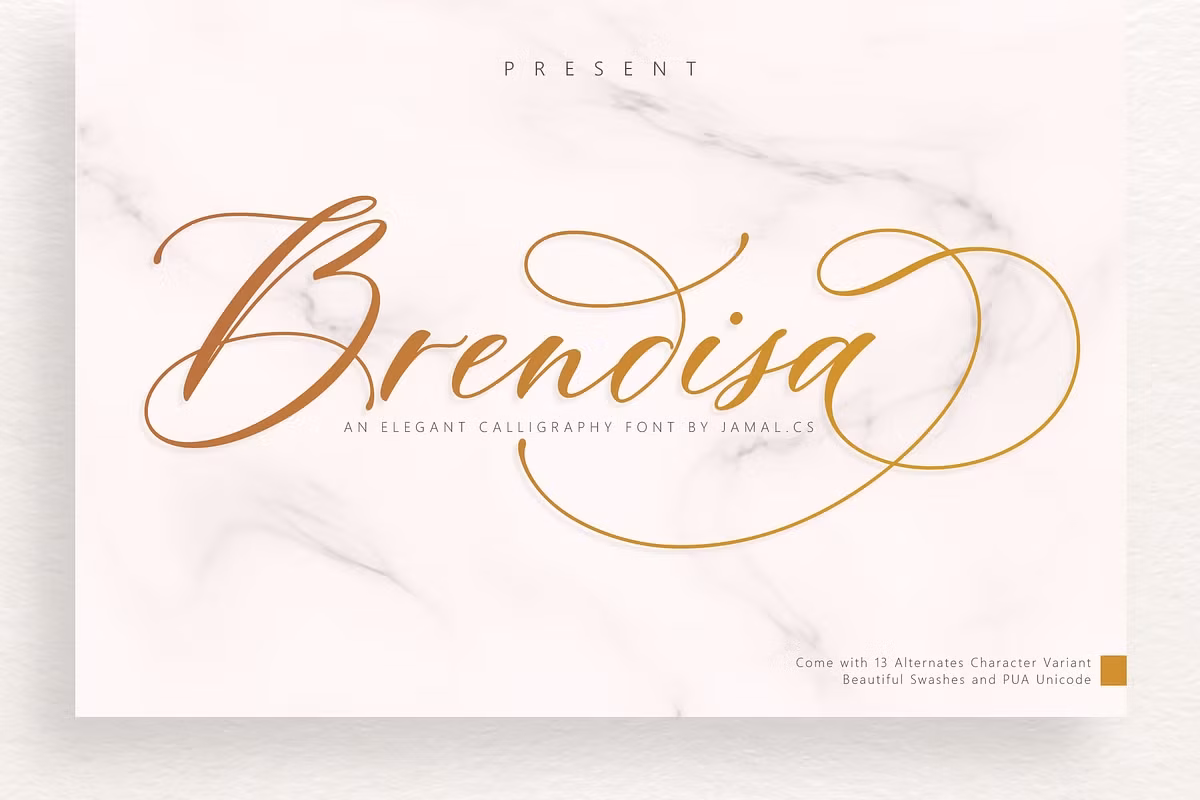
Please note, to use this font for commercial purposes, you must purchase the full version. Brendisa Script is a beautifully crafted script font that captures the essence of elegance and sophistication. With its smooth, flowing curves and stylish appearance, it’s perfect for a wide range of design projects such as logos, invitations, packaging, and more. This font is ideal for adding a personal, handwritten touch to your designs, making them feel both professional and unique. Test it out and enjoy free download access for personal use. Whether you're creating a chic brand identity or designing stunning greeting cards, Brendisa Script Free Download gives you a preview of its beauty and functionality before deciding to purchase the commercial license. Make your designs stand out with the exquisite charm of Brendisa Script.